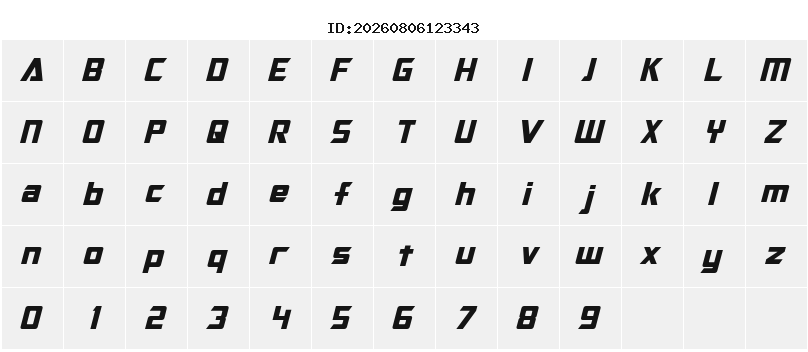
Optimus.ttf
• Font Name: Optimus
• Designer: Neale Davidson
About Optimus.ttf
Optimus.ttf is a modern, elegant sans-serif font designed for ultimate readability and visual harmony. Perfect for branding, headlines, web design, and print materials.